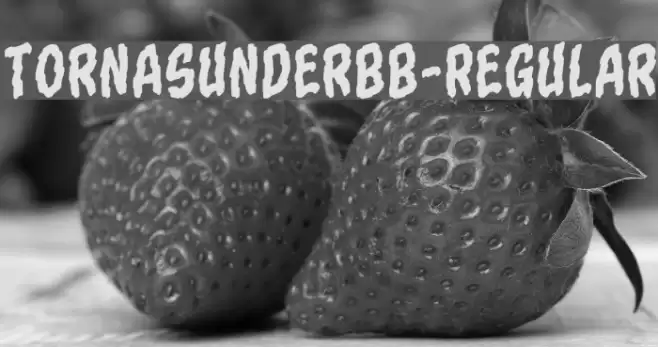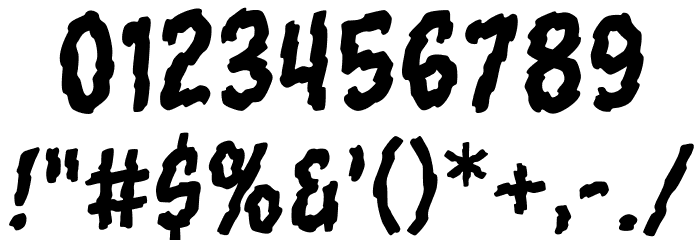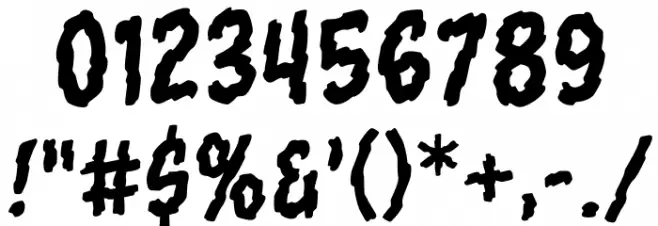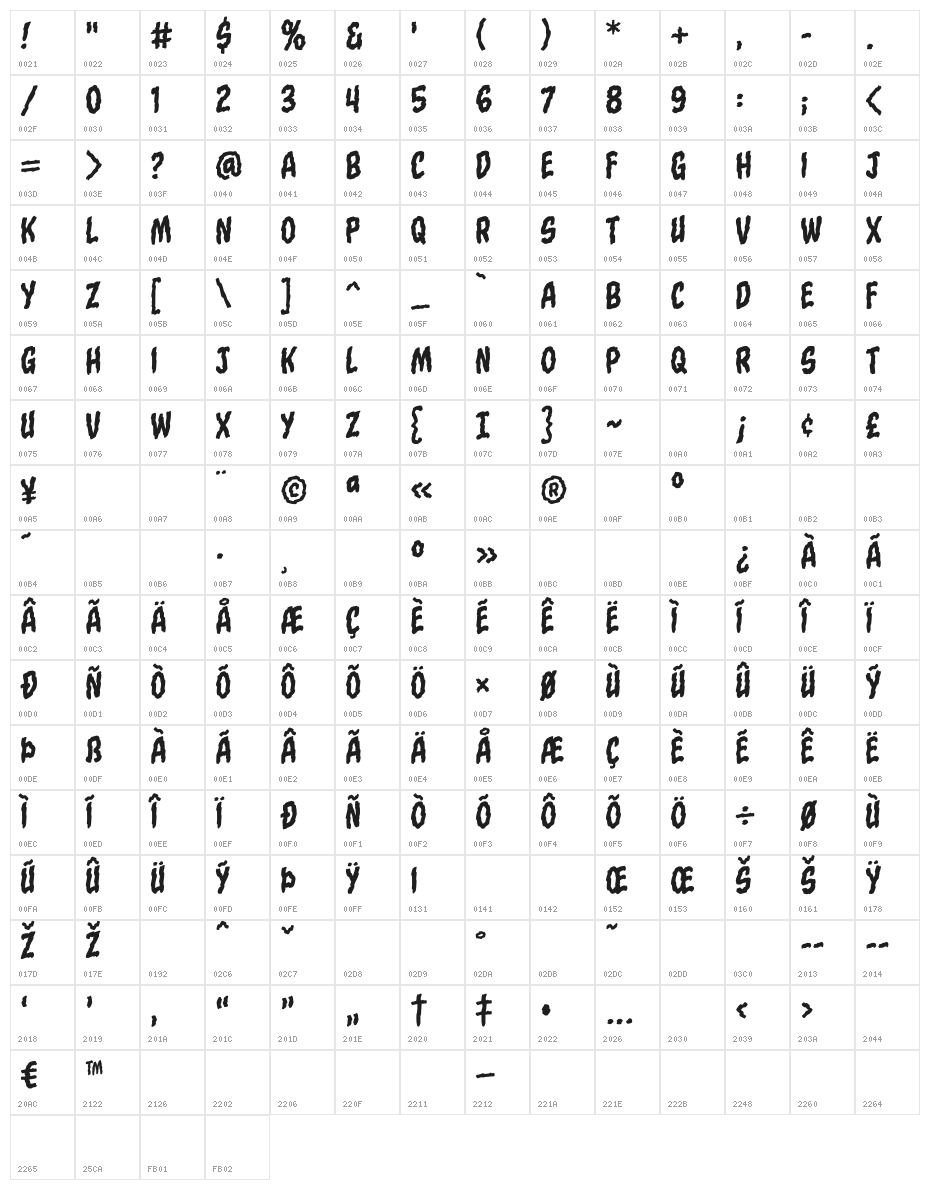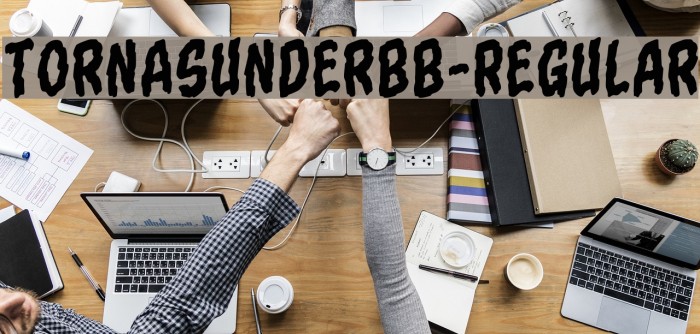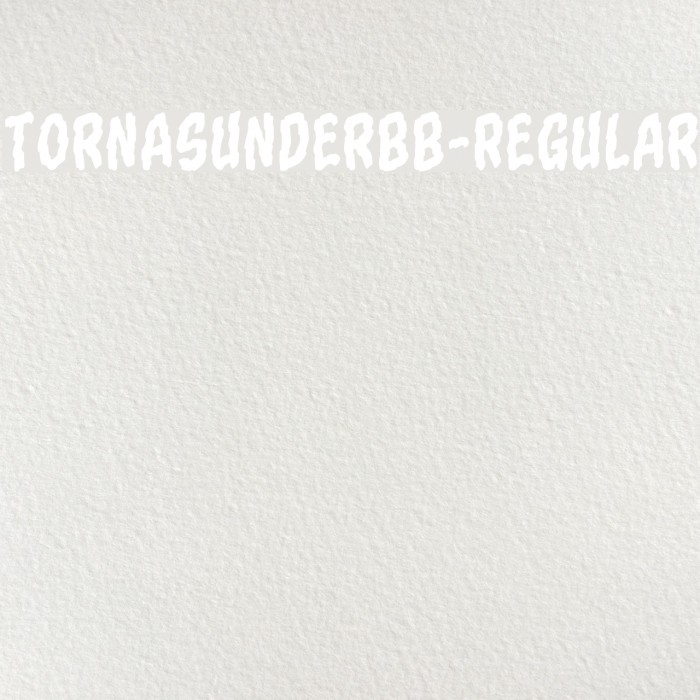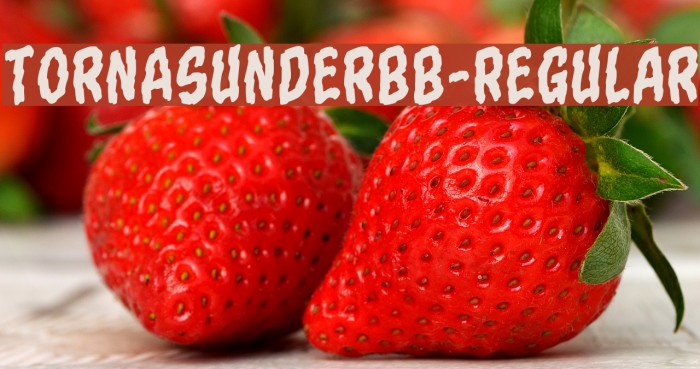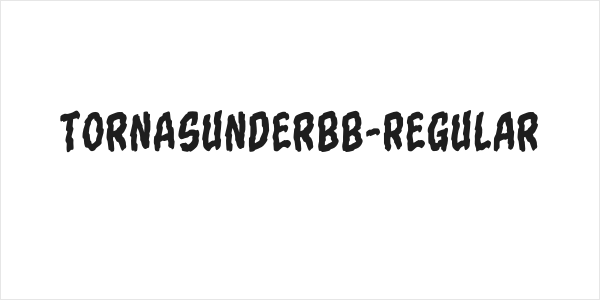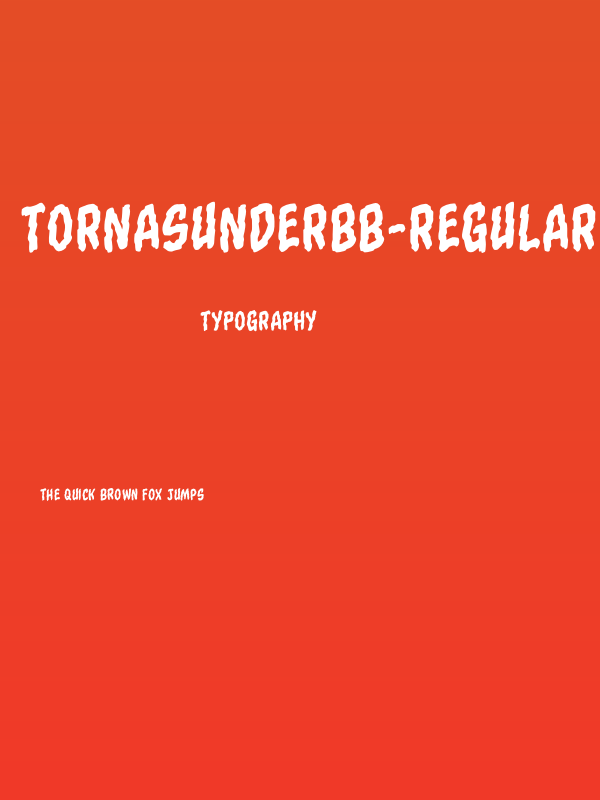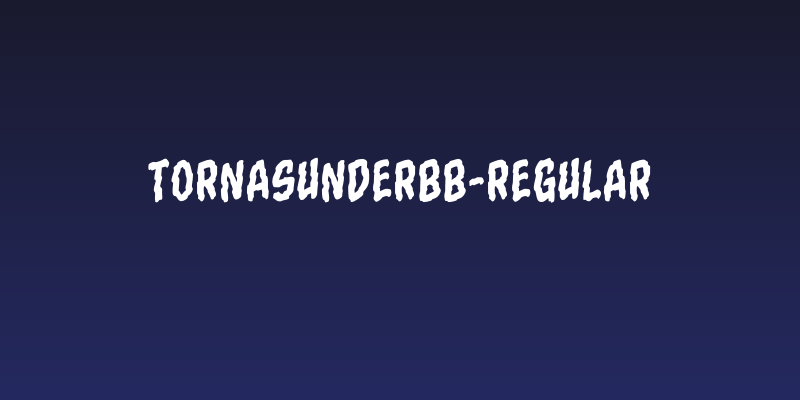
TornAsunderBB-Regular Font
TornAsunderBB-Regular Description
This font features a rugged, distressed appearance with irregular edges, giving it a hand-drawn, organic feel. The characters are bold and impactful, with a slightly uneven baseline that adds to its dynamic and energetic style. The uppercase and lowercase letters maintain a consistent weight, while the numbers and special characters follow the same rough aesthetic. This font's unique texture makes it stand out, ideal for projects that require a bold statement or a grunge-inspired look.
A bold, distressed font with a hand-drawn, rugged appearance from Uncategorized fonts.
- Proposed Projects: Ideal for posters, album covers, branding for edgy products, or any project needing a bold, grunge aesthetic.